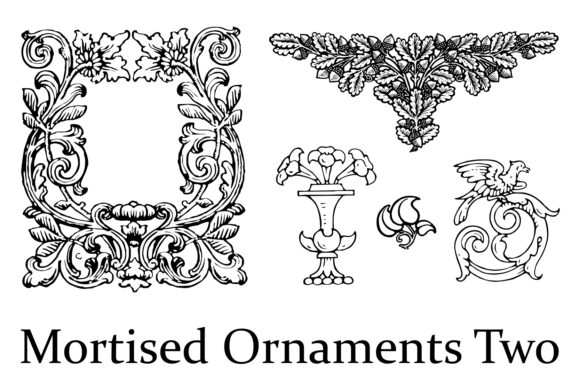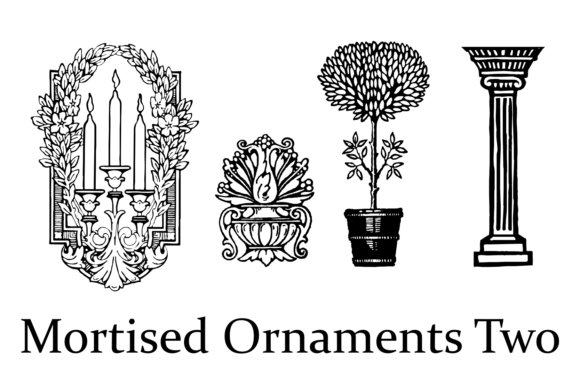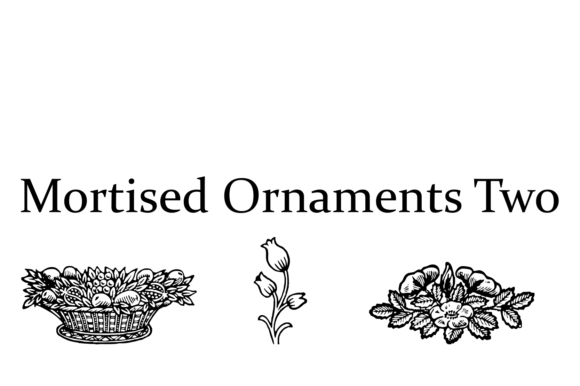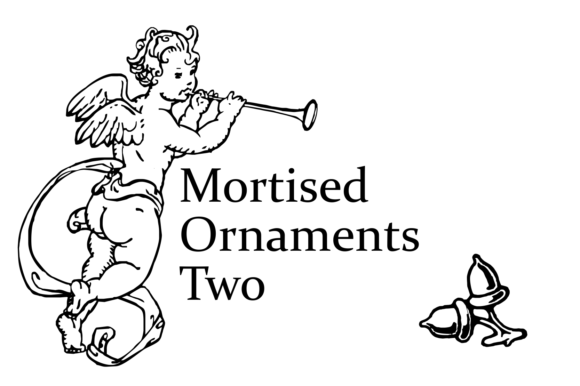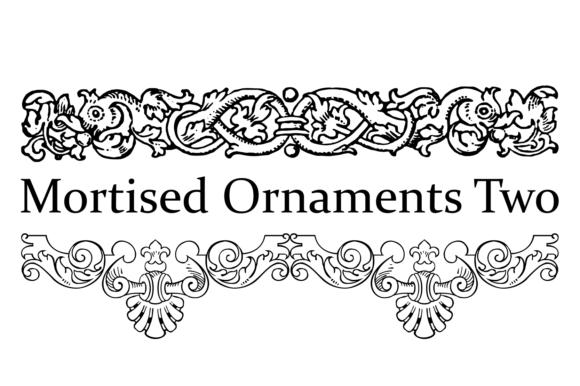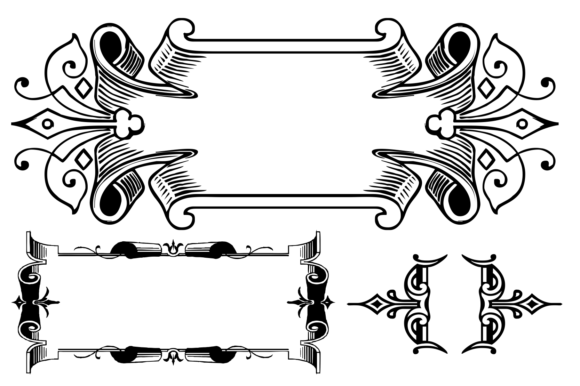
Mortised Ornaments Font
About Mortised Ornaments Font
Mortised and vintage ornaments refer to a collection of decorative elements that are characterized by their intricate and ornate designs, reminiscent of vintage or antique styles. These ornaments are often used to enhance and embellish various design projects, such as invitations, stationery, book covers, and more.
The term “mortised” in this context typically refers to the style of the ornaments, which are designed to fit together seamlessly in a repetitive pattern or to be integrated into a specific layout. These ornaments are carefully crafted with attention to detail, featuring intricate motifs, swirls, flourishes, and other decorative elements that evoke a sense of elegance and nostalgia.
Vintage ornaments, on the other hand, draw inspiration from historical design styles and aesthetics. They often feature motifs and patterns that were popular during specific eras, such as Art Nouveau, Victorian, or Baroque. Vintage ornaments can add a touch of nostalgia and sophistication to your designs, evoking a sense of timelessness and elegance.
The use of mortised and vintage ornaments allows designers to create visually appealing compositions that exude a classic and refined look. These ornaments can be used to frame or highlight important elements, create borders, add flourishes, or simply enhance the overall aesthetic of a design. They provide a versatile toolkit for designers looking to incorporate a vintage or antique flair into their projects.
Whether you’re designing for a formal event, creating vintage-inspired graphics, or simply adding a touch of elegance to your work, mortised and vintage ornaments offer a wealth of possibilities. Their timeless appeal and intricate details make them a popular choice among designers seeking to infuse their designs with a sense of history and sophistication.